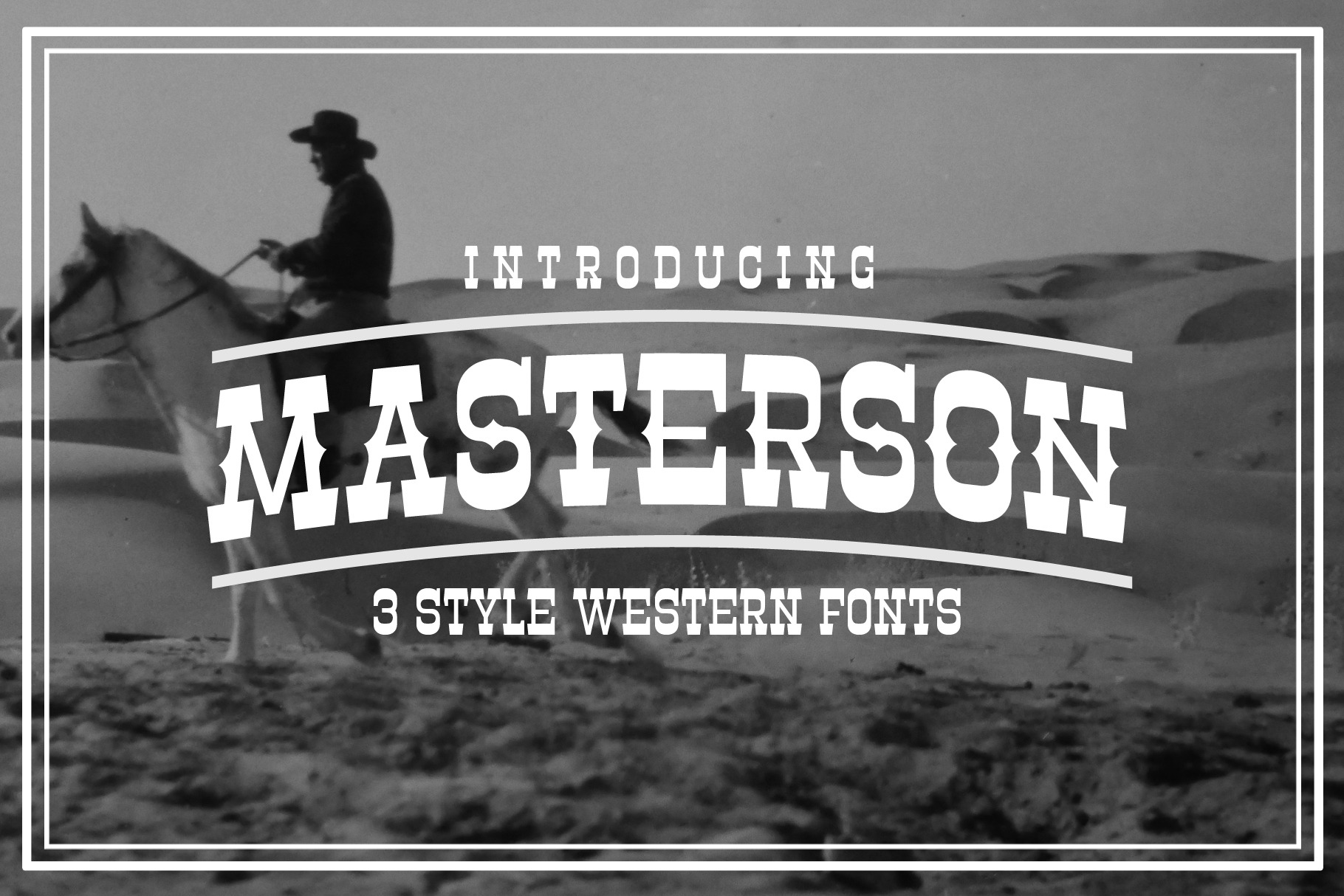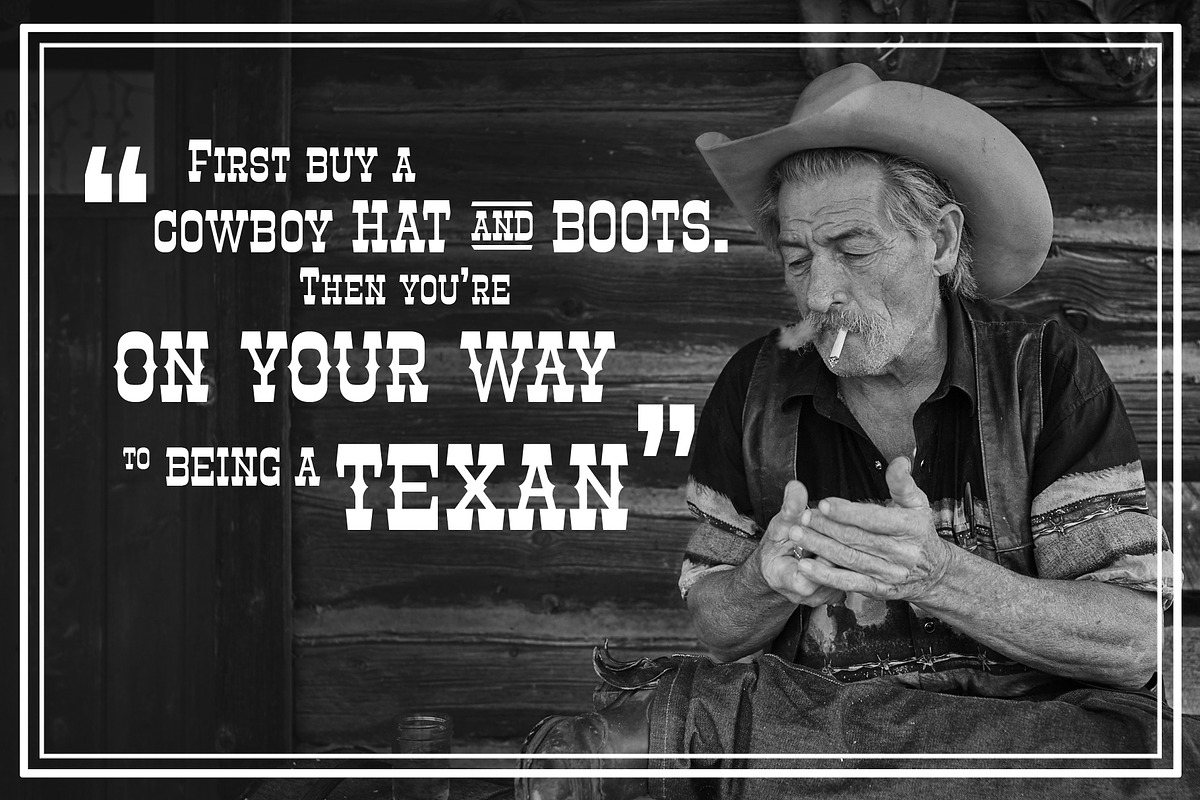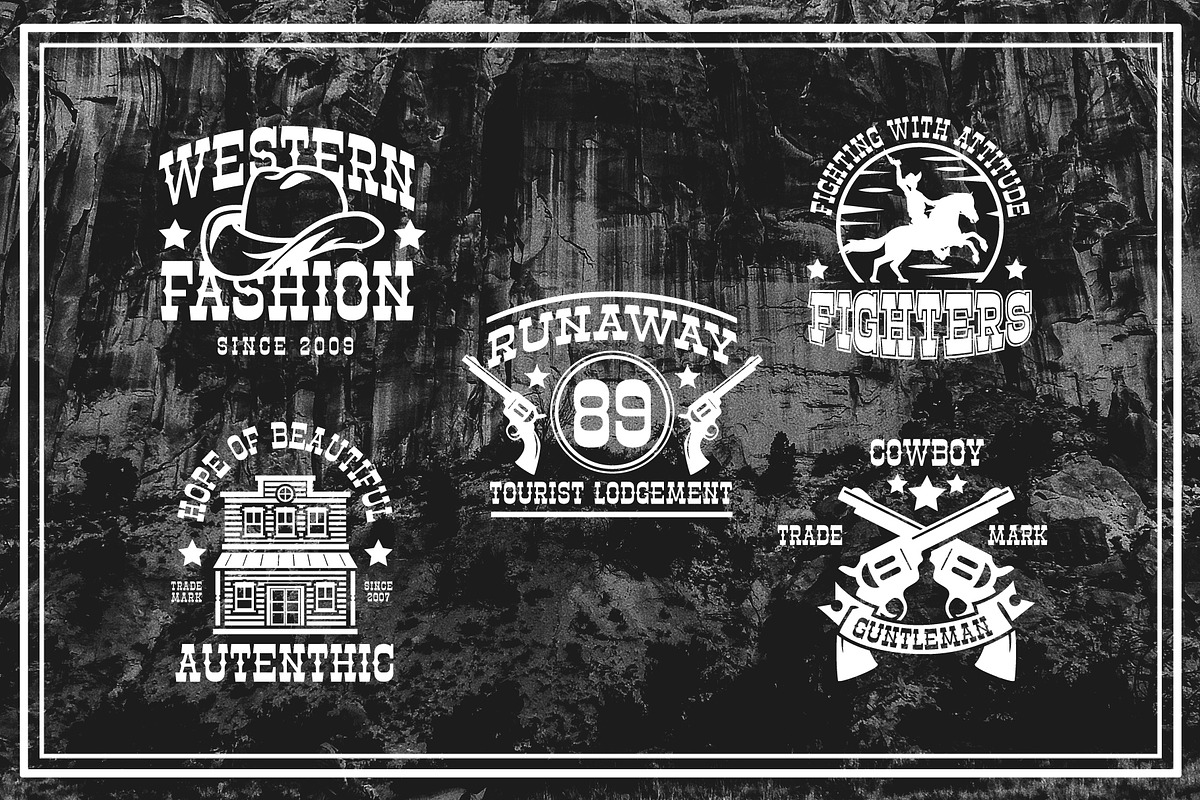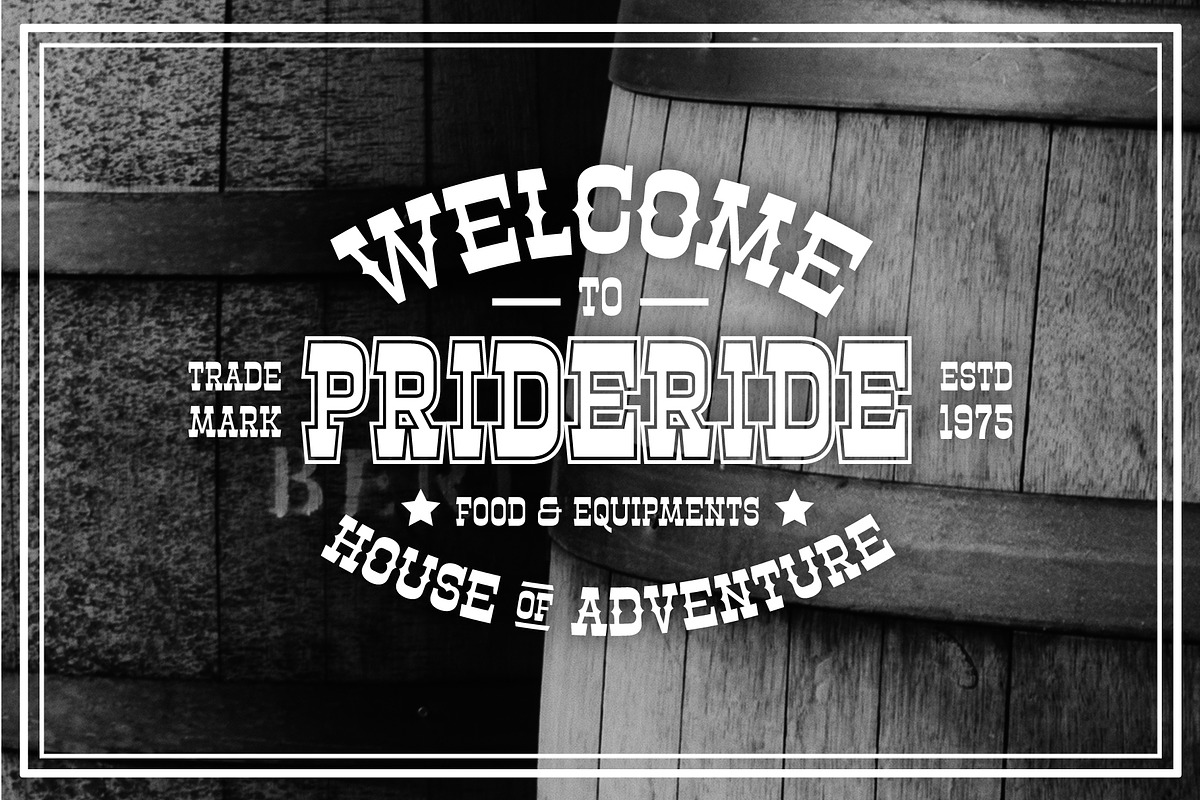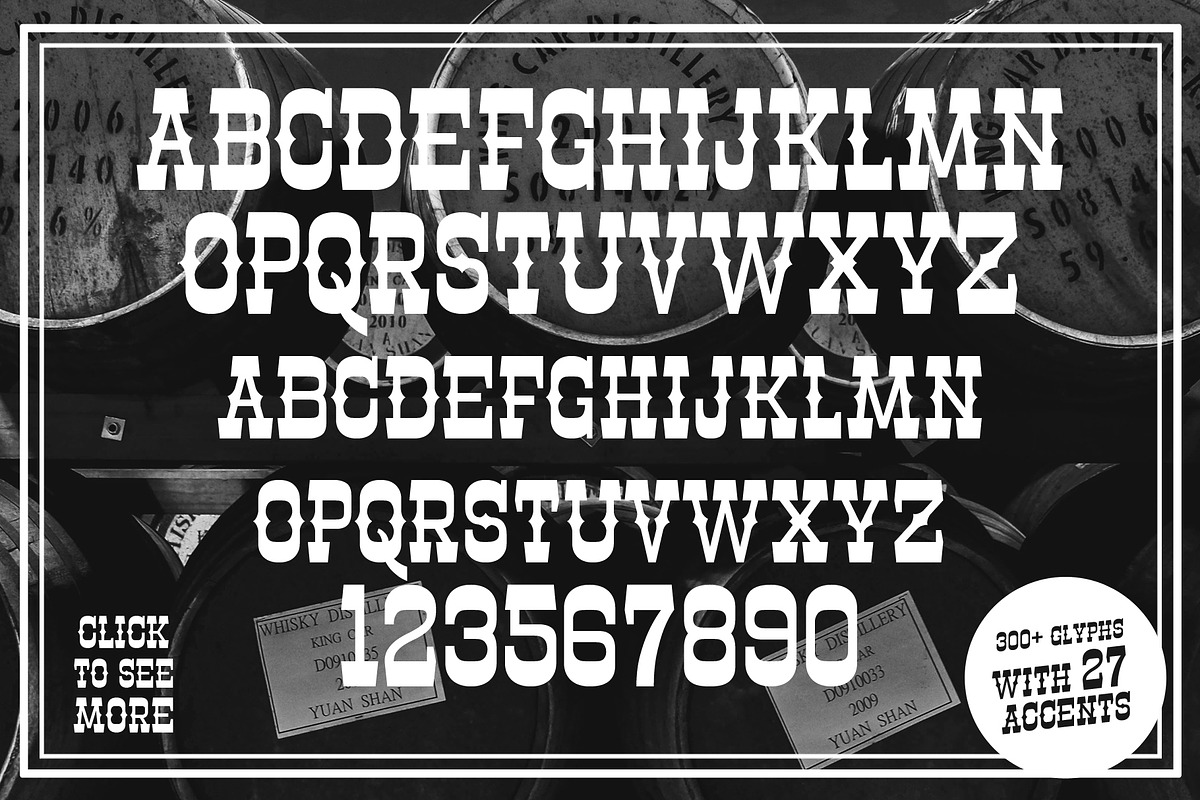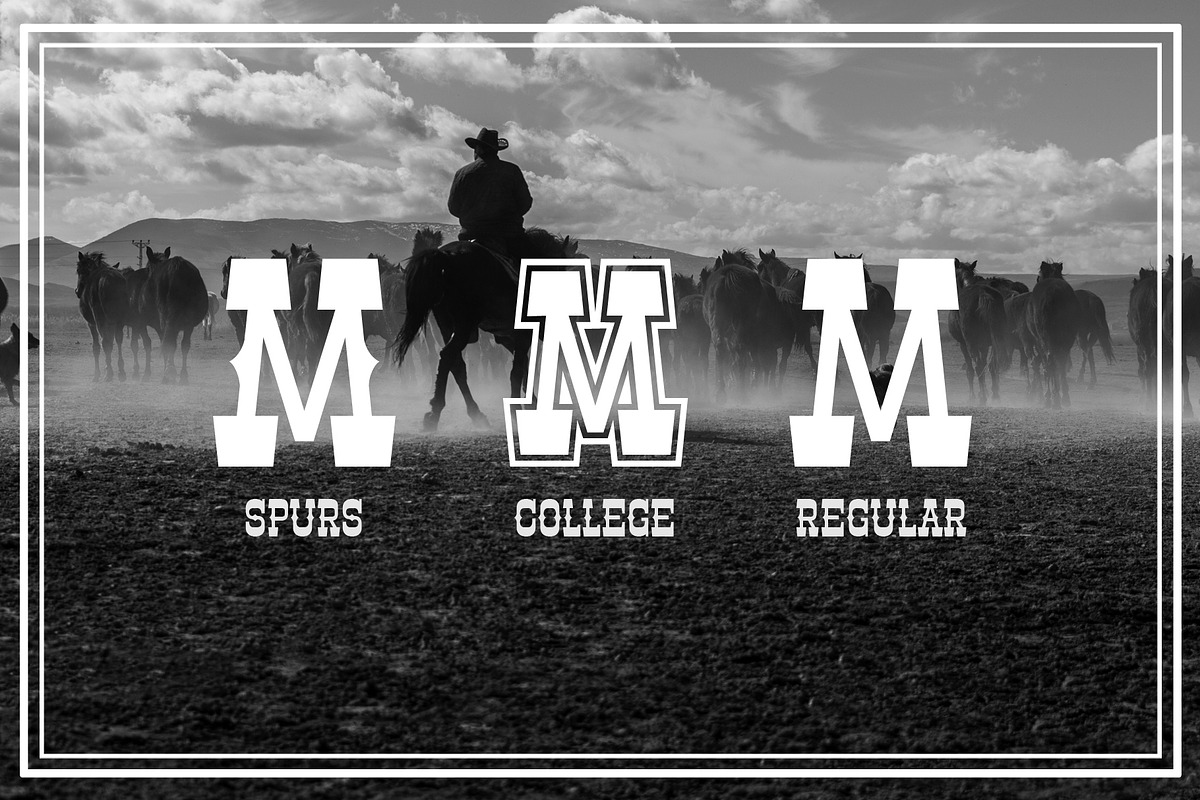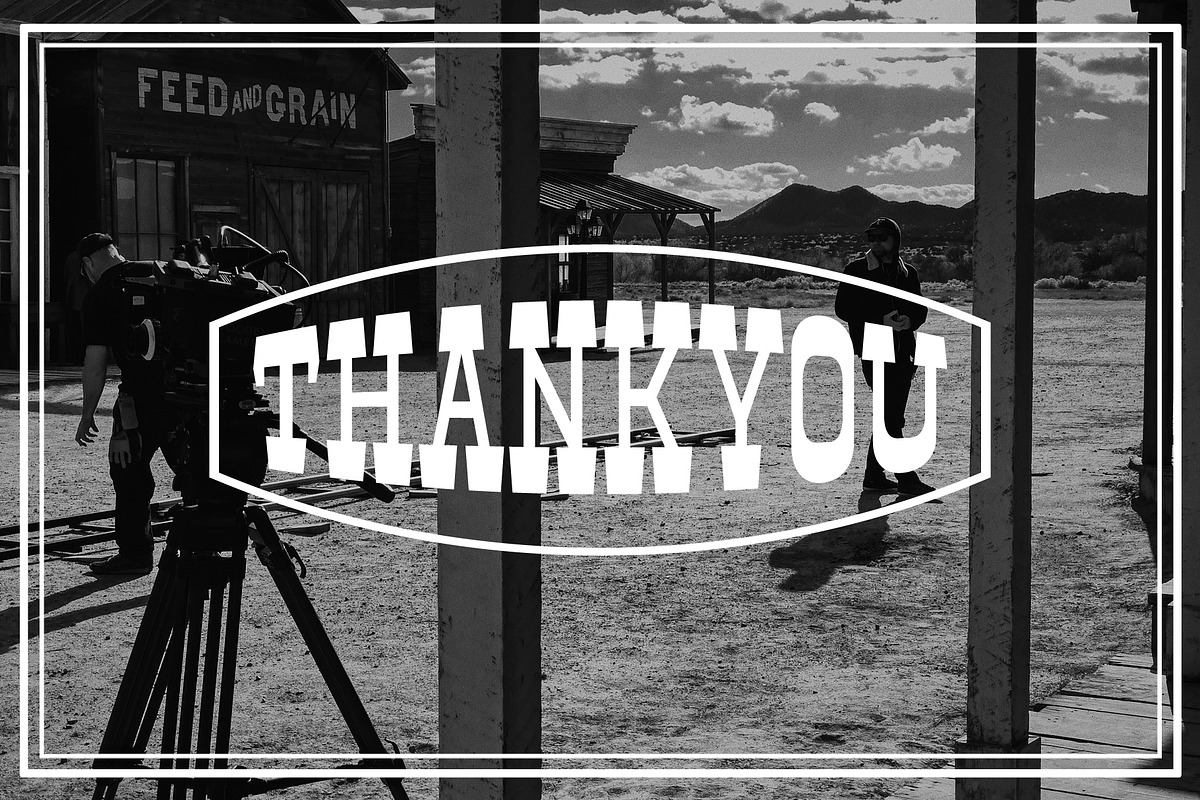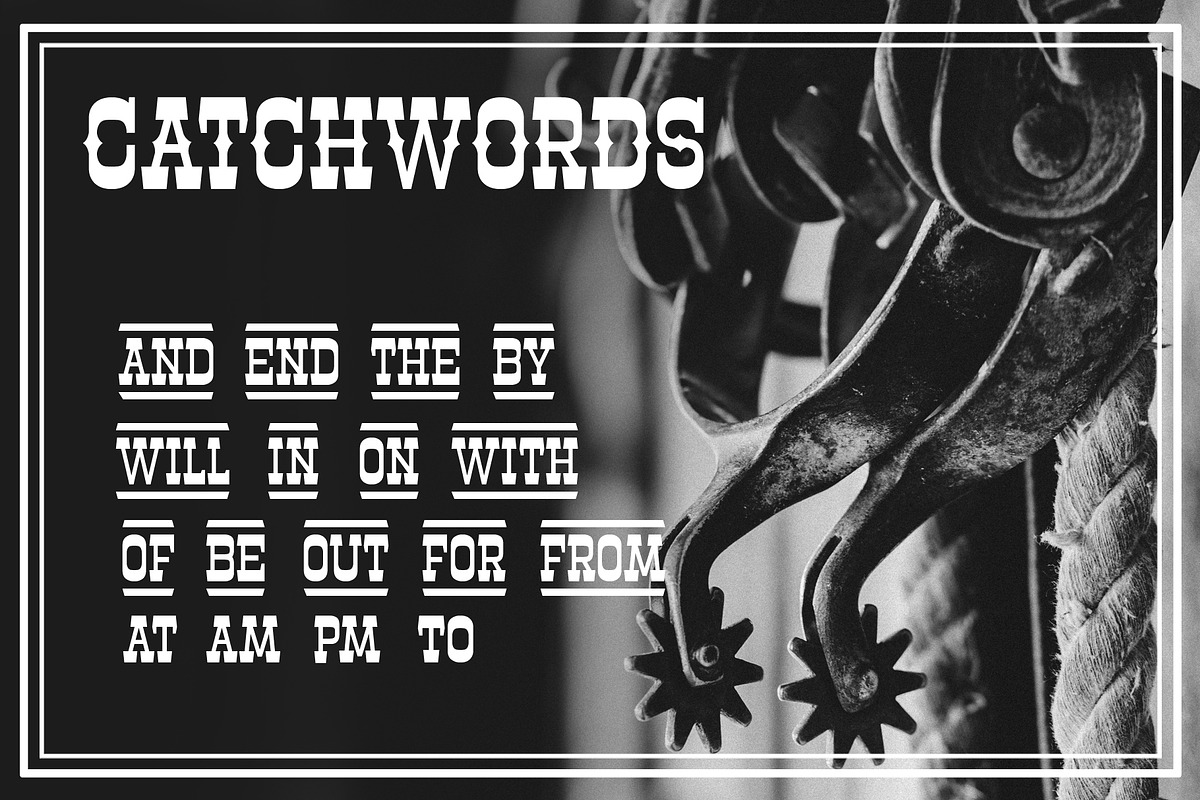
Masterson Font Family
Introducing Masterson the strong slab serif that inspired from cowboy and western style. Masterson has three styles : Regular, Spurs and College that you can combine as a unite in your design project.
Masterson is all-caps font, the good choice for your logo, logotype, badges, store front, headline, sub headline, even body text because the shapes already set to keep the readability when it's use in small size. This font is recommended for western style, vintage, retro, pop art or minimalist.
300+ Glyphs included with 27 accents : Afrikaans, Albanian, Catalan, Croatian, Czech, Danish, Dutch, English, Estonian, Finnish, French, German, Hungarian, Italian, Latvian, Lithuanian, Maltese, Norwegian, Polish, Portugese, Romanian, Slovak, Slovenian, Spanisch, Swedish, Turkish, Zulu.
Masterson has catchwords to give you more variants in your design. See full glyphs by clicking the image above.
- Numbers (with superscript)
- Accents
- Catchwords